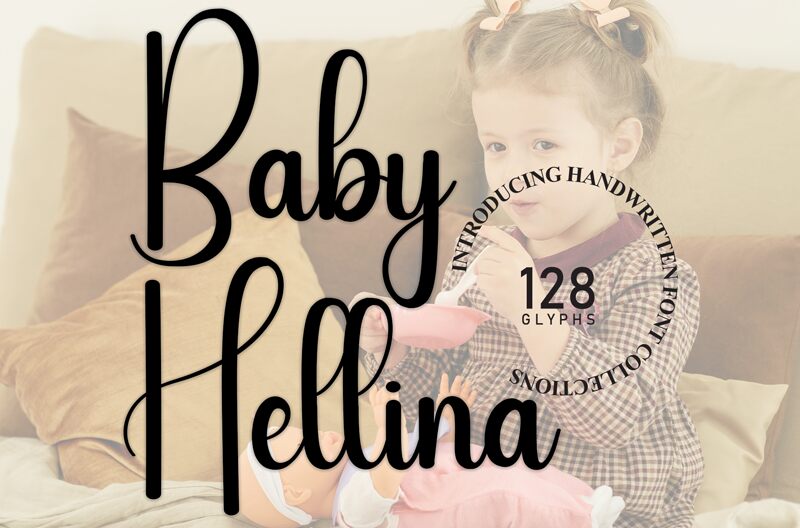
Baby Hellina
Baby Hellina is a captivating handwritten font that exudes a playful and whimsical charm. Designed by Andi Moz, this condensed typeface boasts a distinctive style, with each letter seamlessly flowing into the next, creating a sense of effortless elegance. The font's unique character shines through its organic, brush-like strokes and the subtle variations in line thickness, lending a touch of authenticity to any design.
Versatile in its applications, Baby Hellina could lend itself beautifully to a range of projects, from greeting cards and wedding invitations to product packaging and branding. Its playful yet refined aesthetic makes it an ideal choice for creating a warm, personal, and inviting atmosphere in both digital and print media.